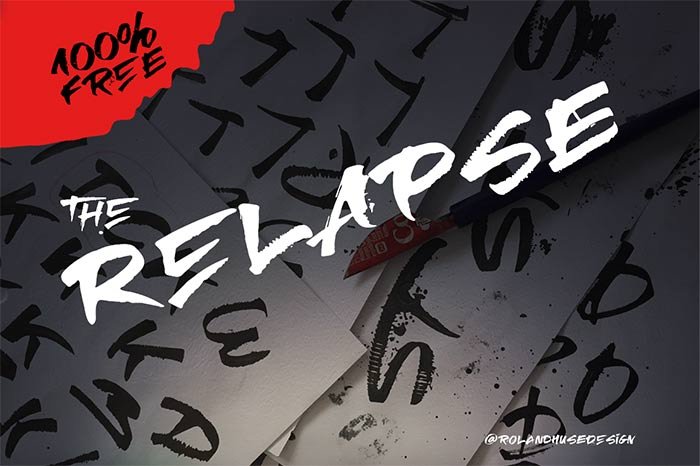
Relapse – Handmade Free Font
It is a 100% handmade and FREE font for commercial use, even the tool it’s made with is D.I.Y., which is a folded pen made out of a soda can.
This font is ALL uppercase characters, but the glyphs in place of the lowercase set you to find a different version of each letter, so you can play around and combine upper and lowercase in order to get the best and most natural result. The character set covers all Western and Eastern European accents and special characters.
There are some ligatures for TT FA IJ ST TH TO, and a stylistic alternate for the letter “O” (underlined “O”)